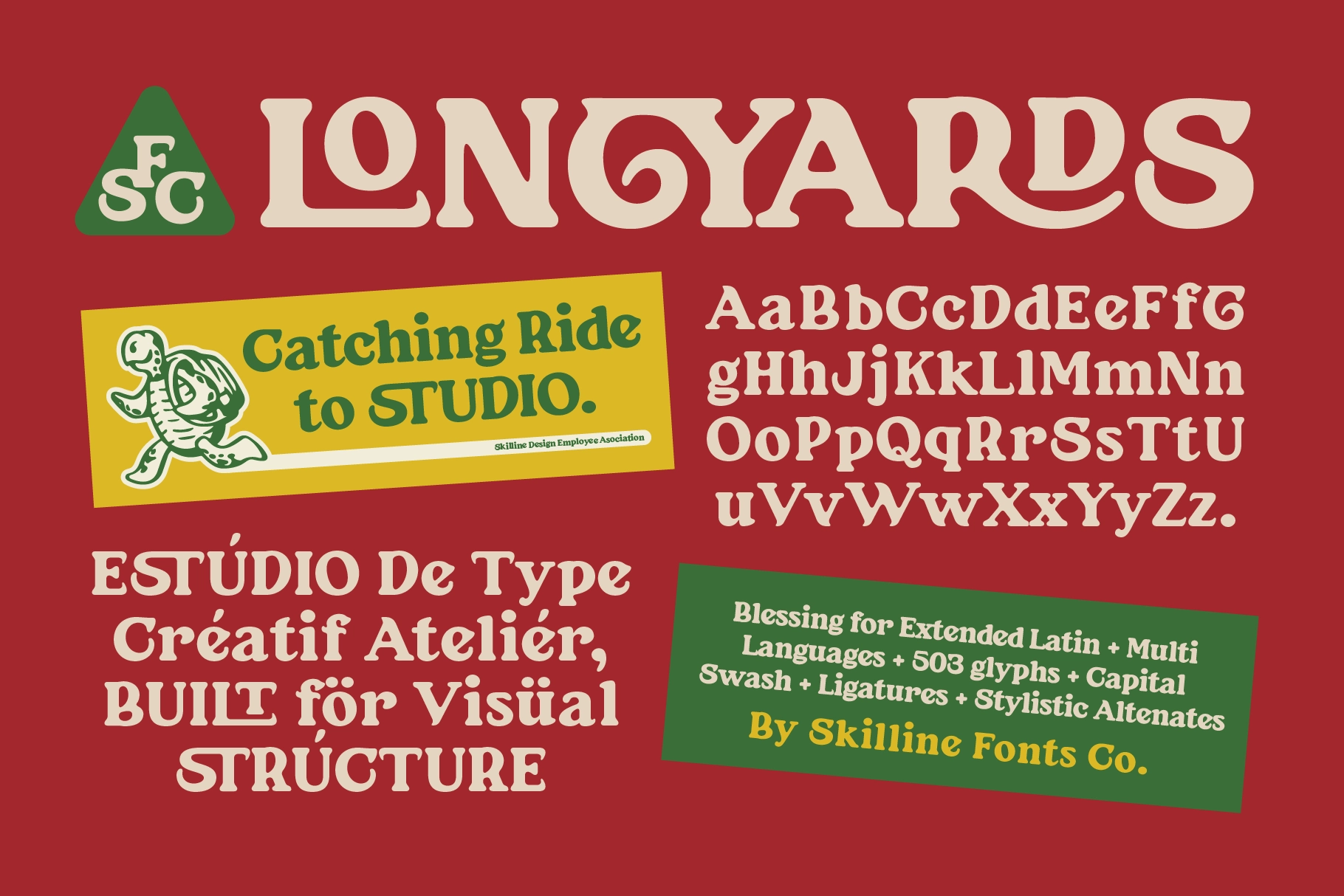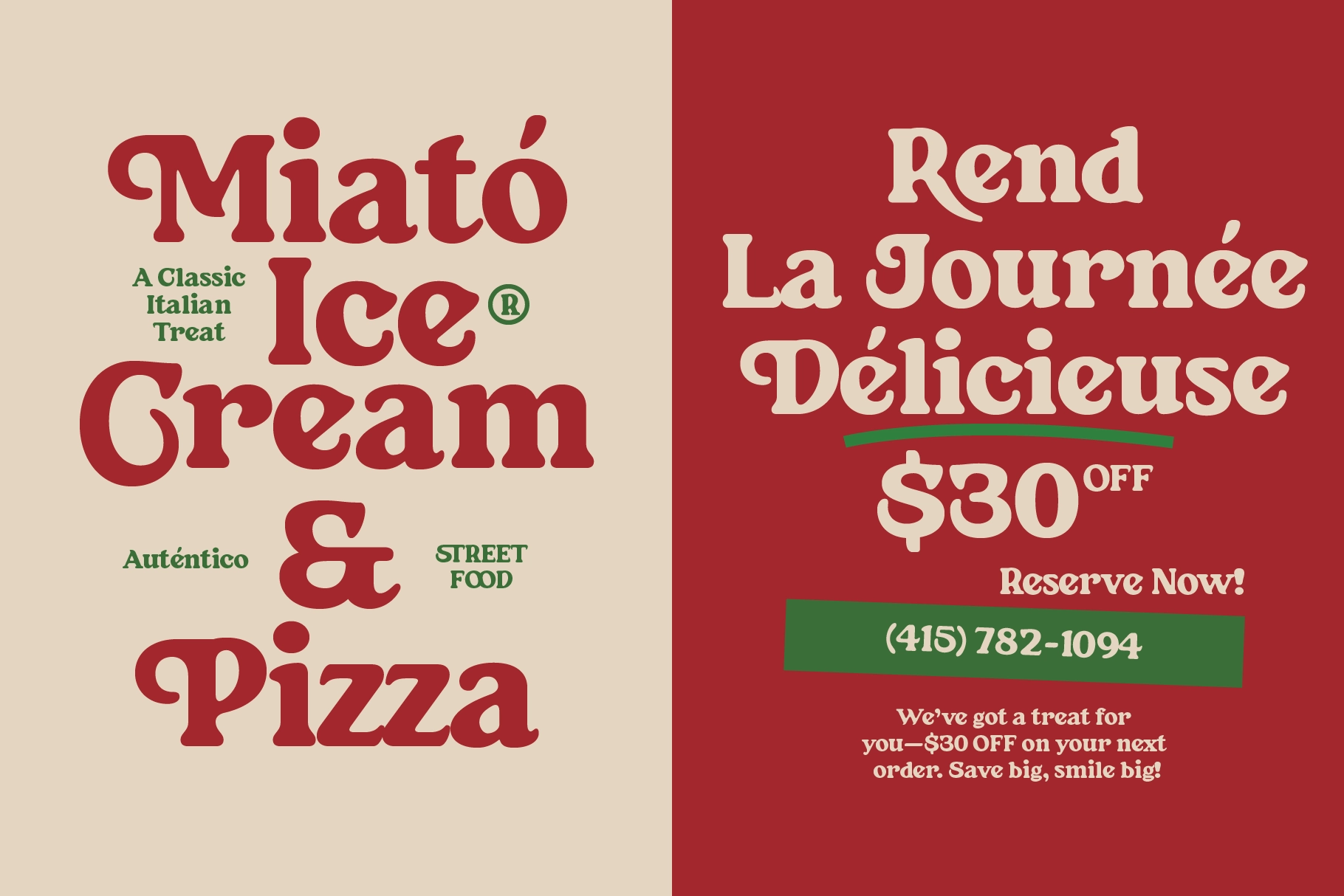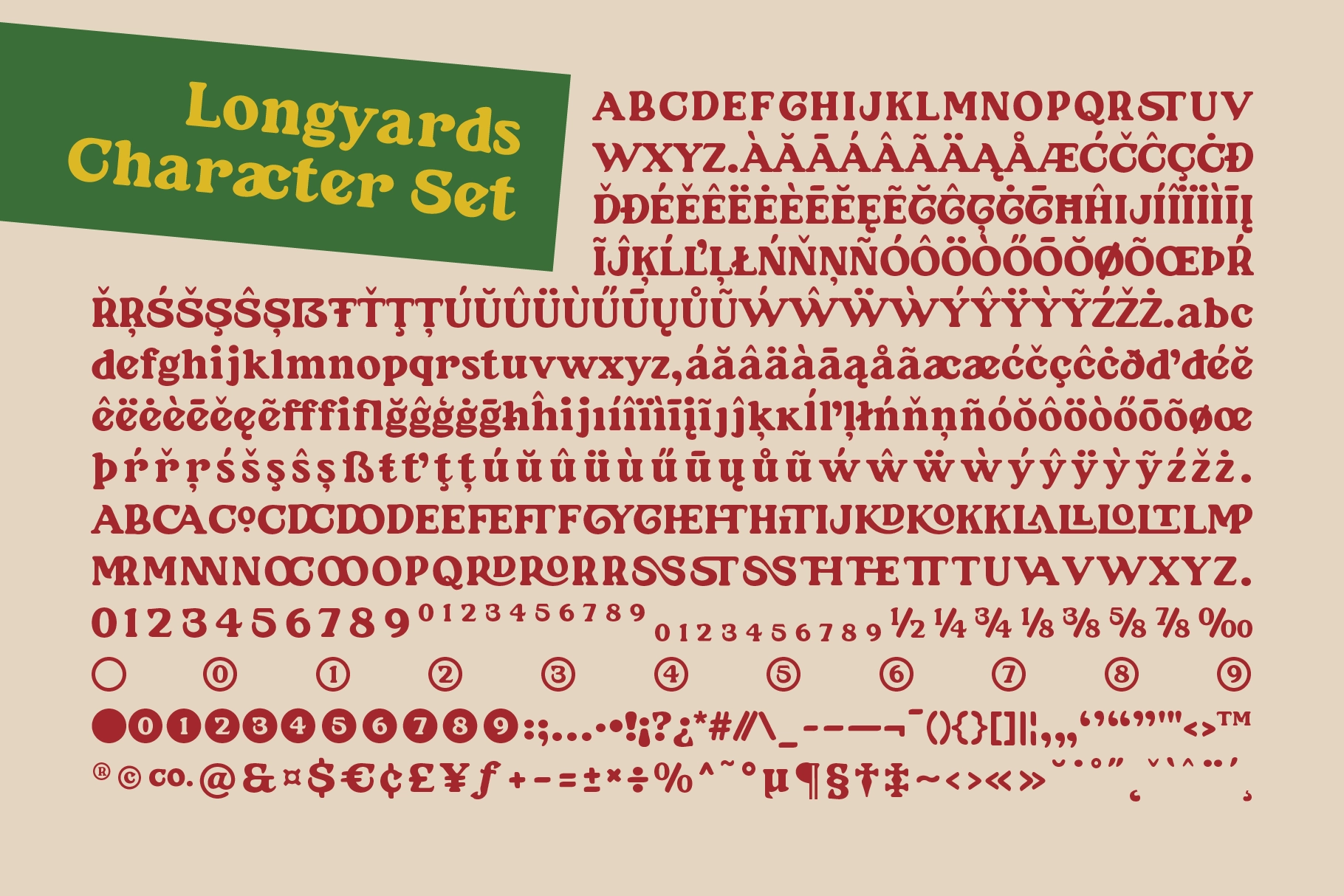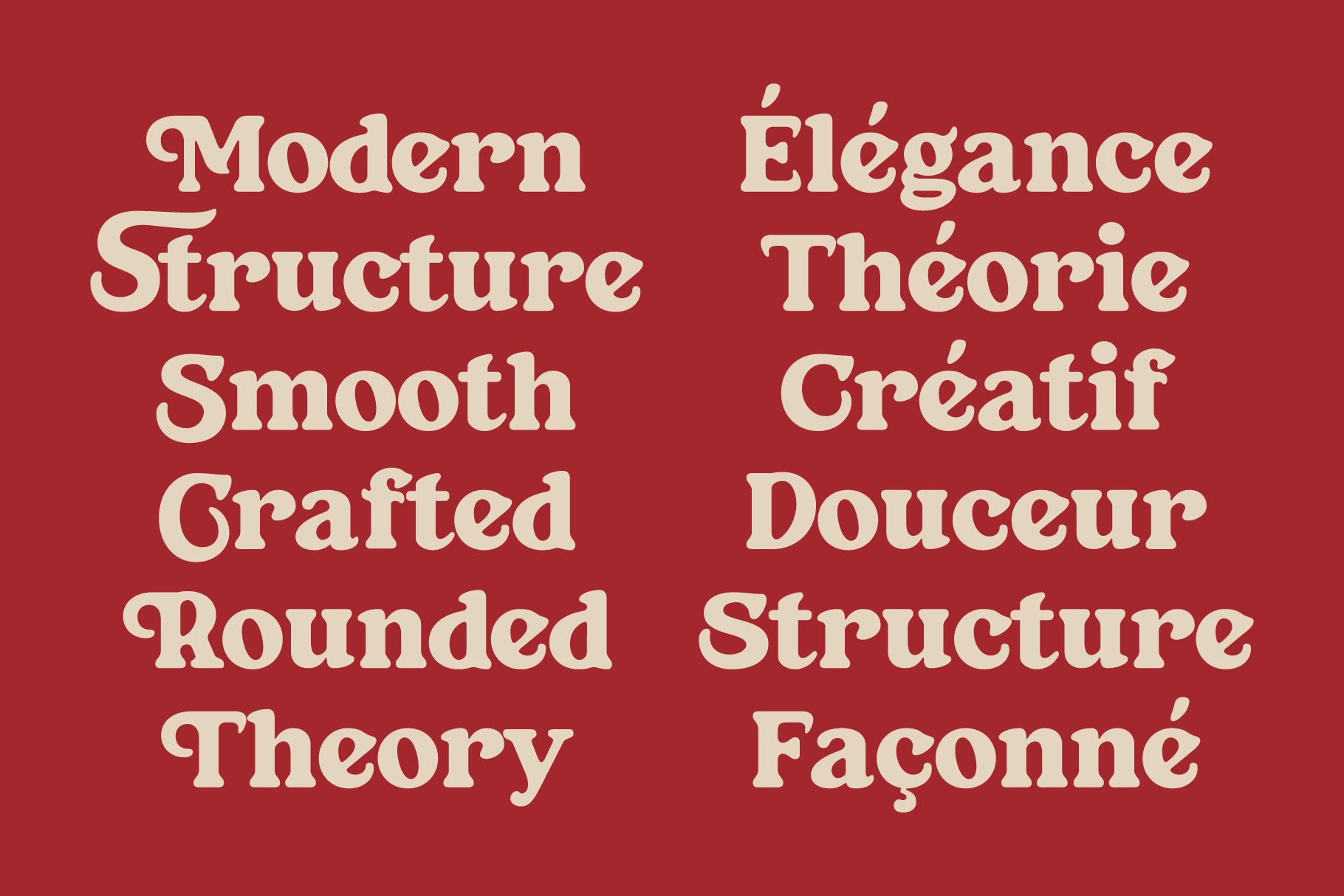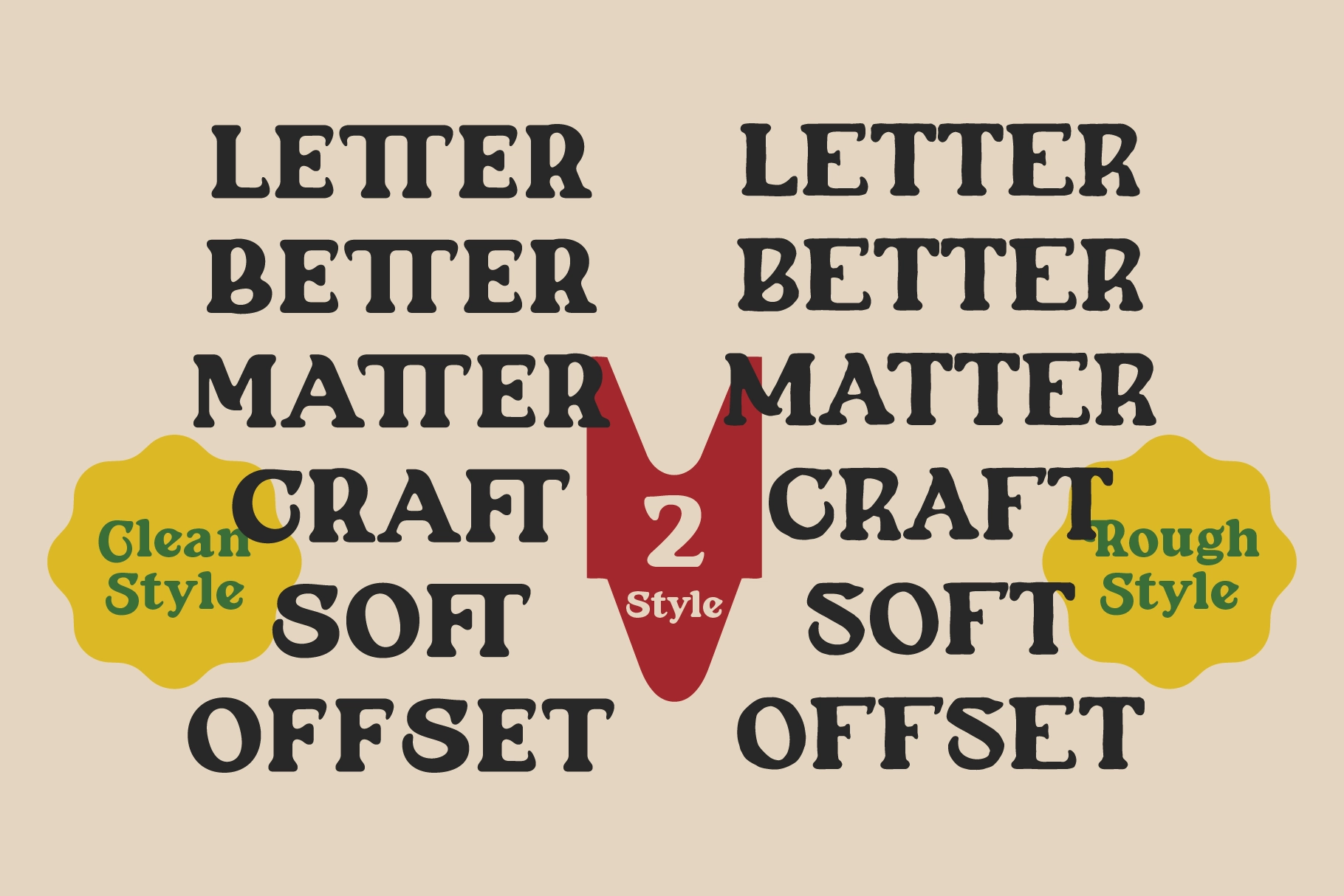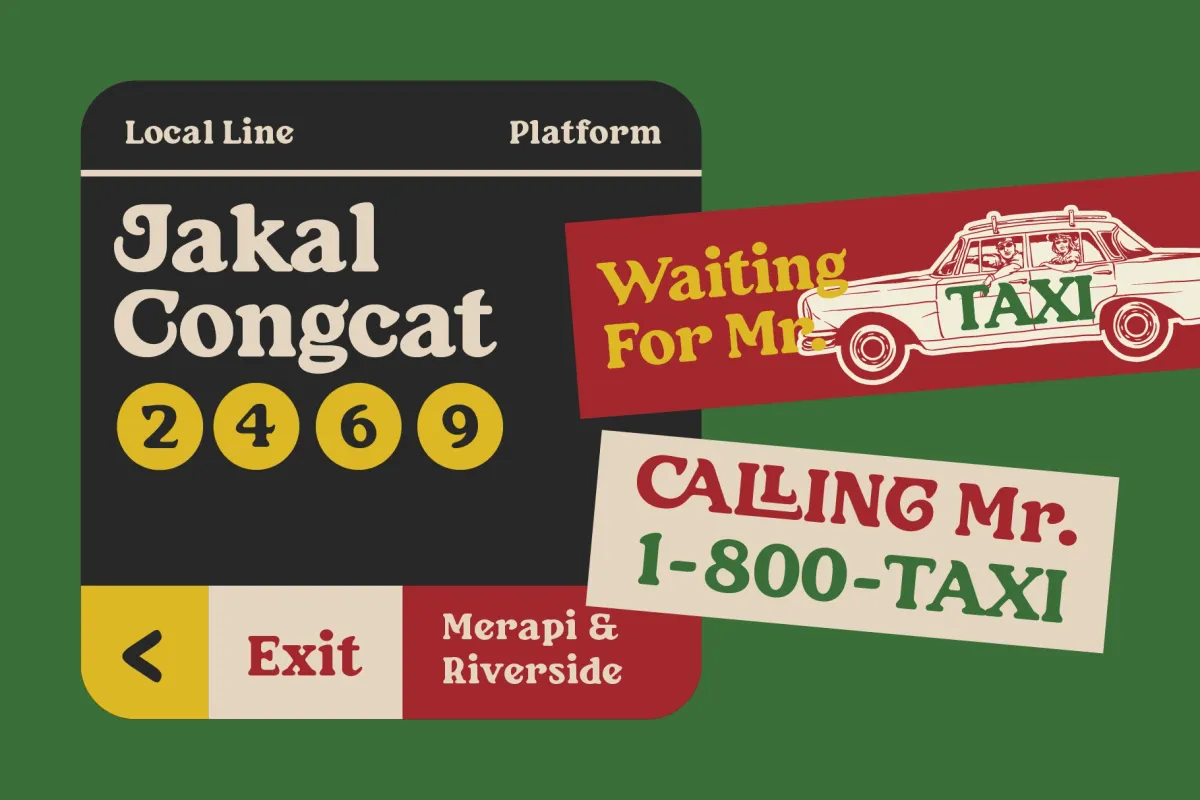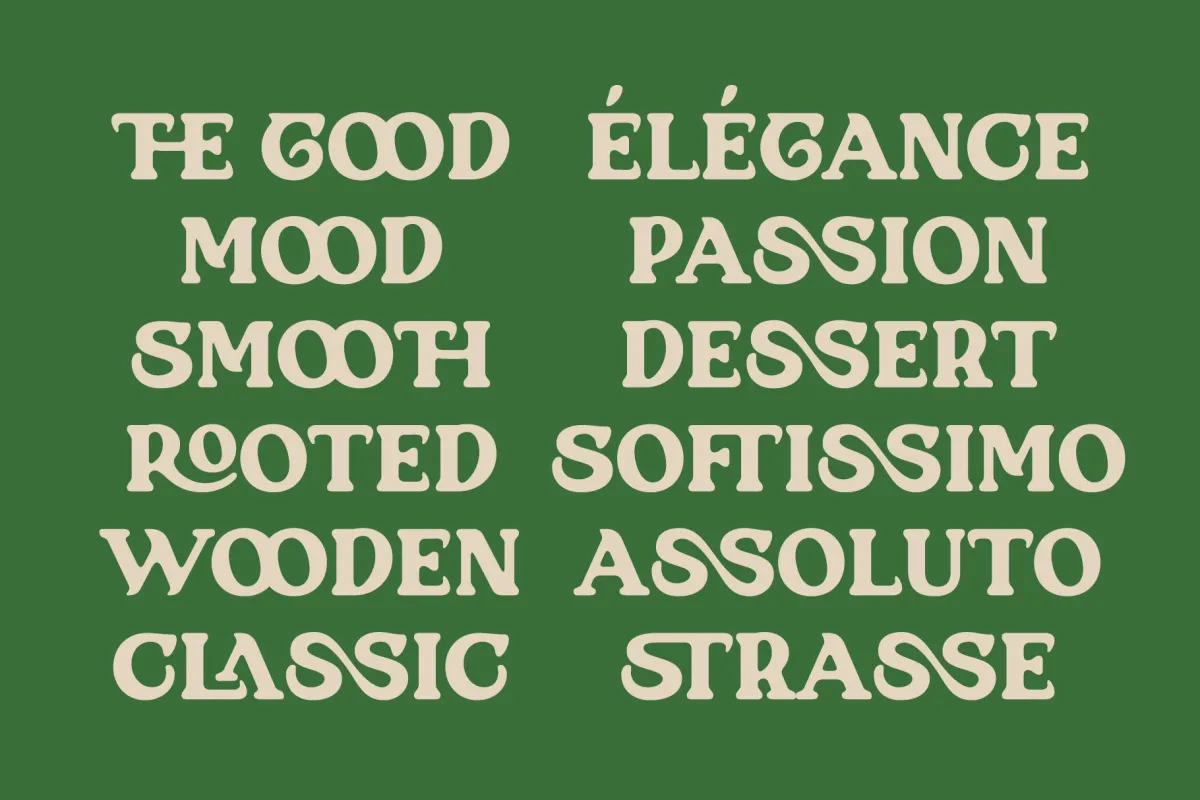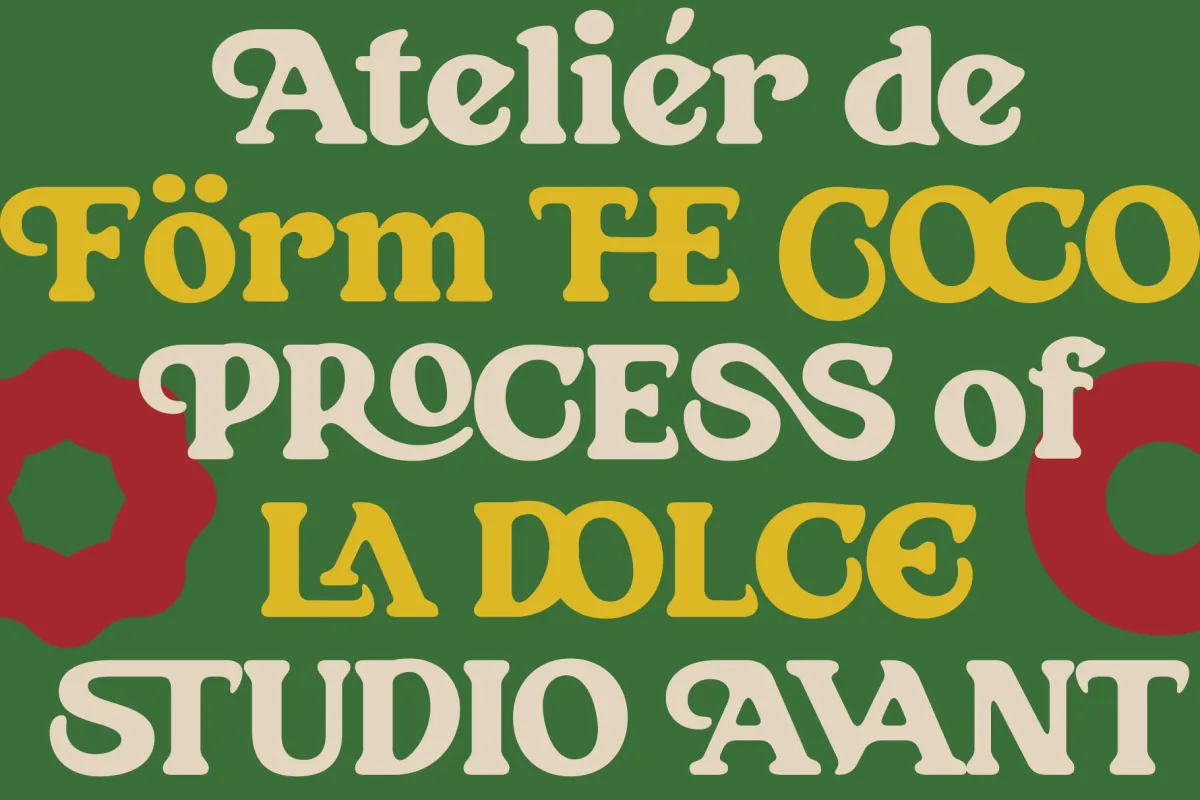
SFC Longyards - Rounded Serif Font
SFC Longyards – Rounded Serif Font is a vintage-inspired display typeface influenced by classic European signage, Italian deli lettering, and retro editorial typography. With its soft curves, bold serif structure, and nostalgic proportions, Longyards delivers a warm yet confident presence that instantly elevates display designs.
Blending old-world charm with modern refinement, this rounded serif font is ideal for branding, packaging, food labels, posters, signage, and lifestyle merchandise. Its distinctive letterforms create a friendly yet authoritative tone, making it especially effective for hospitality, culinary, and artisan brands.
Packed with stylistic alternates, ligatures, and expressive swash details, SFC Longyards – Rounded Serif Font offers both creative flexibility and professional performance across print and digital projects.
Ideal Applications:
- Food & beverage branding
- Italian restaurant & deli design
- Packaging & label design
- Vintage posters & advertisements
- Logos & badge marks
- Café menus & signage
- Apparel & merchandise graphics
- Multilingual character set
- Ligatures & stylistic alternates
- Swash characters
- Clean & rough styles included